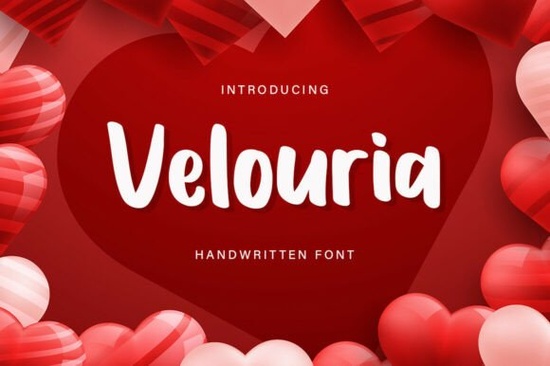
If you are looking to infuse your layout with a wave of gentle romance, Velouria is a charming handwritten typeface that bridges the gap between cozy Valentine notes and contemporary boutique product packaging. Its thick, fluid marker strokes combined with subtly rounded endpoints give it a soft baseline bounce that feels welcoming rather than rigid. This dense structural volume ensures that any project remains legible while maintaining a comforting presence.
Why Choose a Marker Style Typeface?
Handwritten styles have taken over modern branding because they signal authenticity. Unlike serif or sans-serif fonts which feel formal, marker styles connect with the viewer on a personal level. Velouria features a unique upright posture that keeps things organized even when adding warmth to the design. Whether you are designing a bakery shop flyer, artisanal gift tags, or custom romantic greeting cards, the letterforms stand up well in both uppercase and lowercase settings.
When choosing a font for print-on-demand sellers, stability matters. You don’t want characters bleeding off the edges of a label. Because Velouria is designed with clear spacing, it prints cleanly on t-shirts, tote bags, or stickers. Social media designers appreciate how the baseline bounce adds movement to static posts without making the text look like it’s falling apart.
Comparing Popular Script Options
If you are exploring different styles to find the perfect match, several other high-quality script fonts exist in the market. Some creators prefer something slightly looser or more casual than what Velouria offers. For instance, if you need a font that feels a bit softer for wedding invitations, Hello Peachy provides a very similar aesthetic with a touch more flourishes. You can also visit the Hello Peachy font script fonts collection on our site for a deeper look at how these types perform.
Another option to consider involves calligraphic structures. If your project requires sharper angles mixed with curves, Galistalia presents a bold take on modern cursive. While Velouria focuses on thick strokes, Galistalia offers elegant thin lines that still carry weight. Designers often browse the Galistalia calligraphy font script fonts directory when seeking specialized decorative text.
Sometimes you want a font that feels playful and energetic. In these cases, Amorphose delivers a distinct personality with its fluid shapes. It is great for youth-oriented brands or creative workshops where standard handwriting feels too serious. For those who prefer structured elegance, Magnetica brings a magnetic pull to headlines with strong vertical emphasis. Finally, for projects needing a relaxed coastal vibe, Laugh Beach captures a breezy summer tone perfectly. You can explore the full range of these choices via the Amorphose font script fonts, Magnetica font script fonts, and Laugh Beach font script fonts archives to see live samples.
Making the Most of High-Impact Typography
Regardless of which font you select, pairing your type correctly is essential. With Velouria, simple background colors allow the thick strokes to pop. White or light beige backgrounds enhance the gentle romance theme effectively. When printing candles or gift tags, ensure the resolution is high enough to capture the smooth transitions of the marker effect.
Small businesses often use these fonts for quotes or testimonials. Because the baseline bounces slightly, centering the text creates a focal point that draws attention. If you are combining this with body text, choose a clean sans-serif or slab-serif to maintain contrast. This prevents the design from becoming cluttered and ensures the message stays readable.
Design Checklist for Best Results
- Test Legibility: Ensure the marker strokes do not merge too closely at small sizes.
- Background Contrast: Keep the background neutral to highlight the font's organic shape.
- Variety Check: Compare alternatives like Velouria against other options before finalizing your brand identity.
By selecting a font that matches your brand voice, you save yourself the trouble of redesigning later. Whether you are crafting homemade goods or running an online store, the right typeface does a lot of the heavy lifting for your presentation.